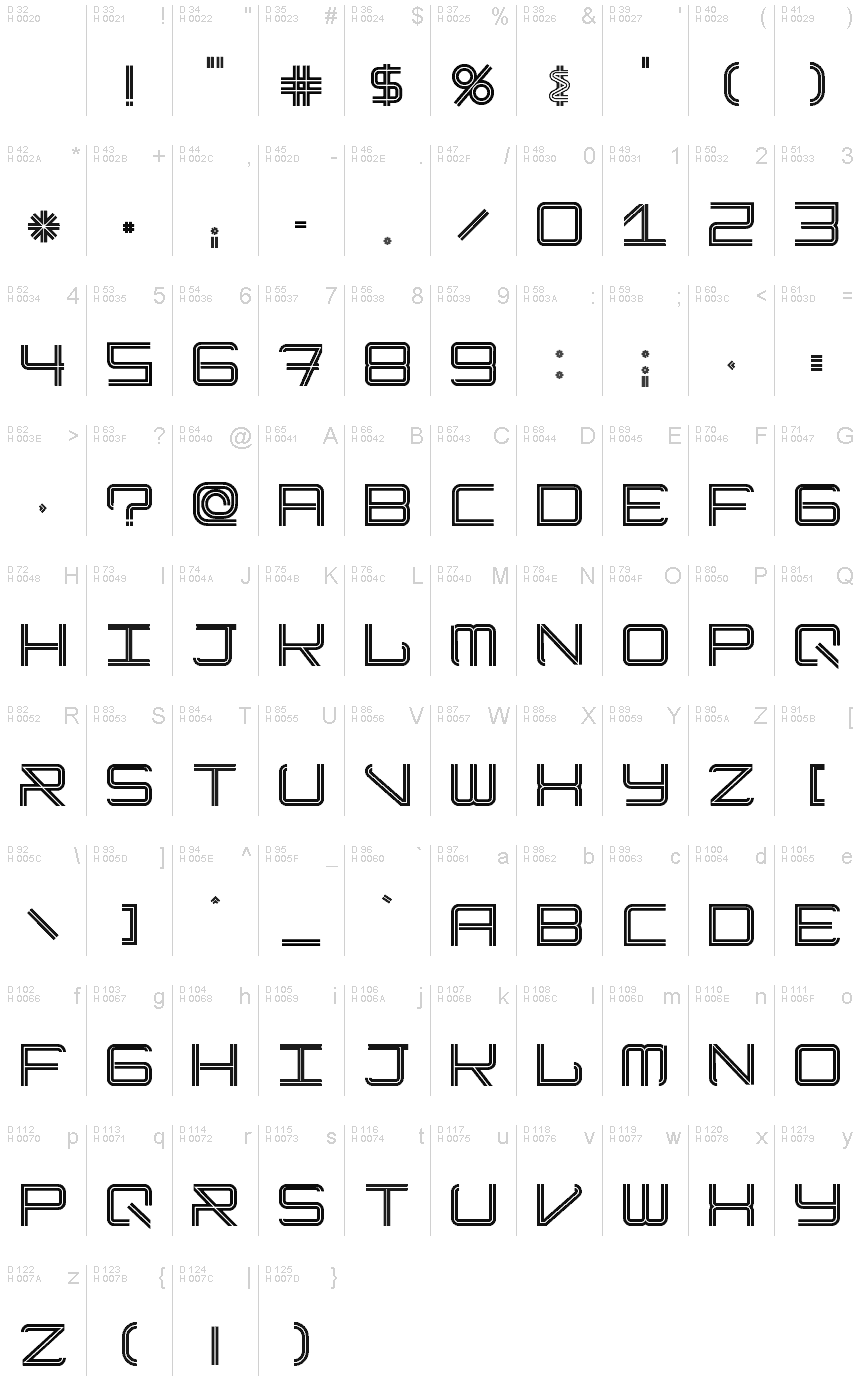
ModernismStroke
Modernism Stroke is a captivating display font that exudes a distinct techno-inspired aesthetic. Designed by Max Infeld Xerographer Fonts, this expanded typeface boasts a bold, angular form with sharp, striking edges that command attention.
The geometric lines and angular curves create a visually striking and modern appearance, making it an ideal choice for a range of design applications, from digital interfaces to editorial layouts. Modernism Stroke's unique style lends itself to dynamic branding, attention-grabbing headlines, and impactful typographic compositions that seamlessly blend form and function.